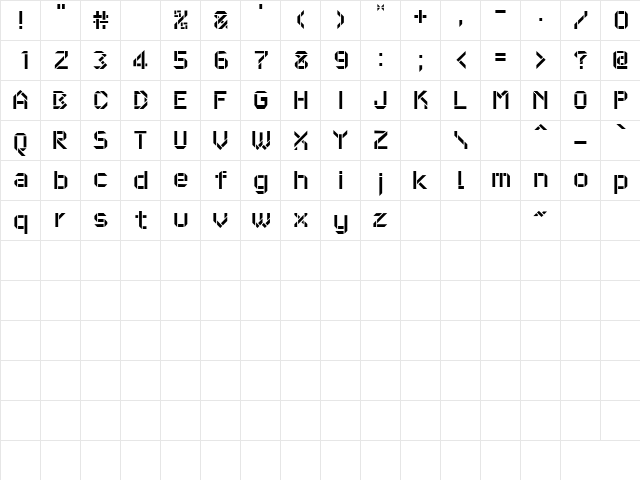
MakestencilAlp Regular
Design Context for MakestencilAlp Typeface
MakestencilAlp has the rough pragmatism of spray-painted stencil signage, adding a raw, street-level authenticity to designs.
A strong choice for packaging that needs edge, warehouse aesthetics, and rough-and-ready visual identities.
Pro Tip: Use MakestencilAlp at large sizes on packaging, posters, or apparel where the stencil cutaways read clearly. Avoid small sizes where those gaps become visual noise.